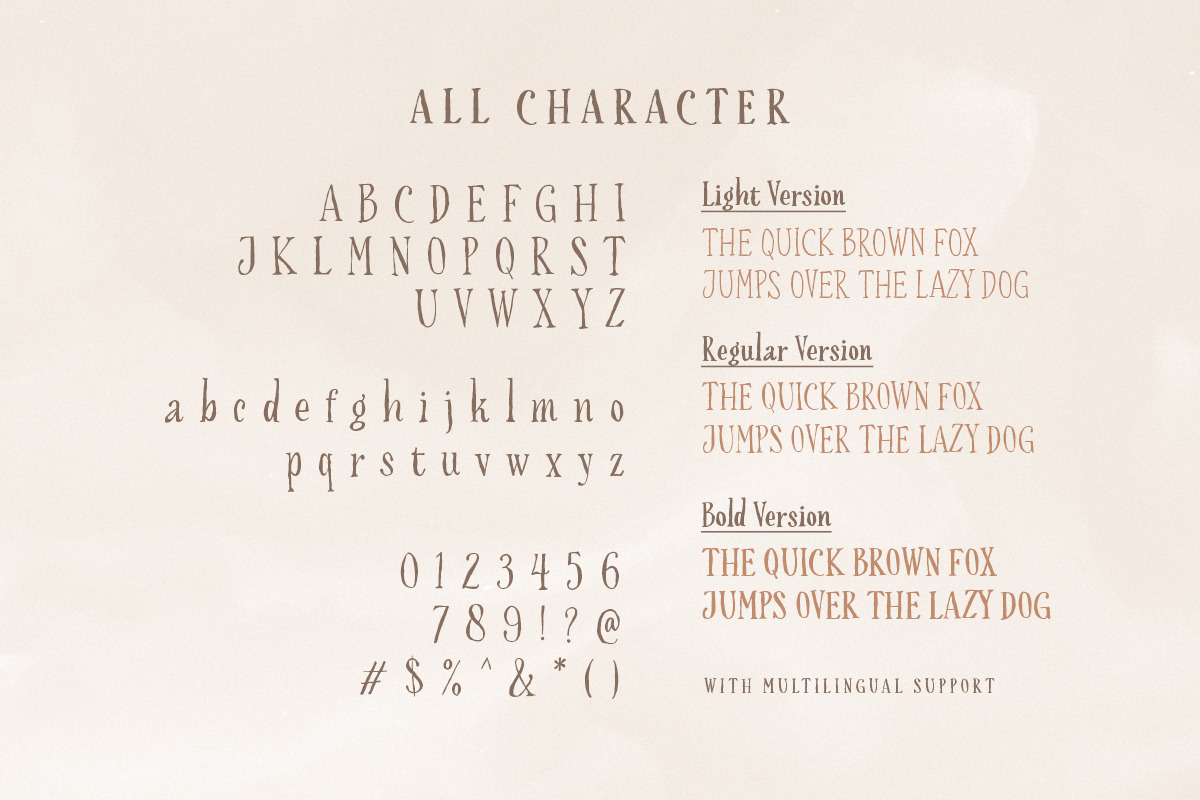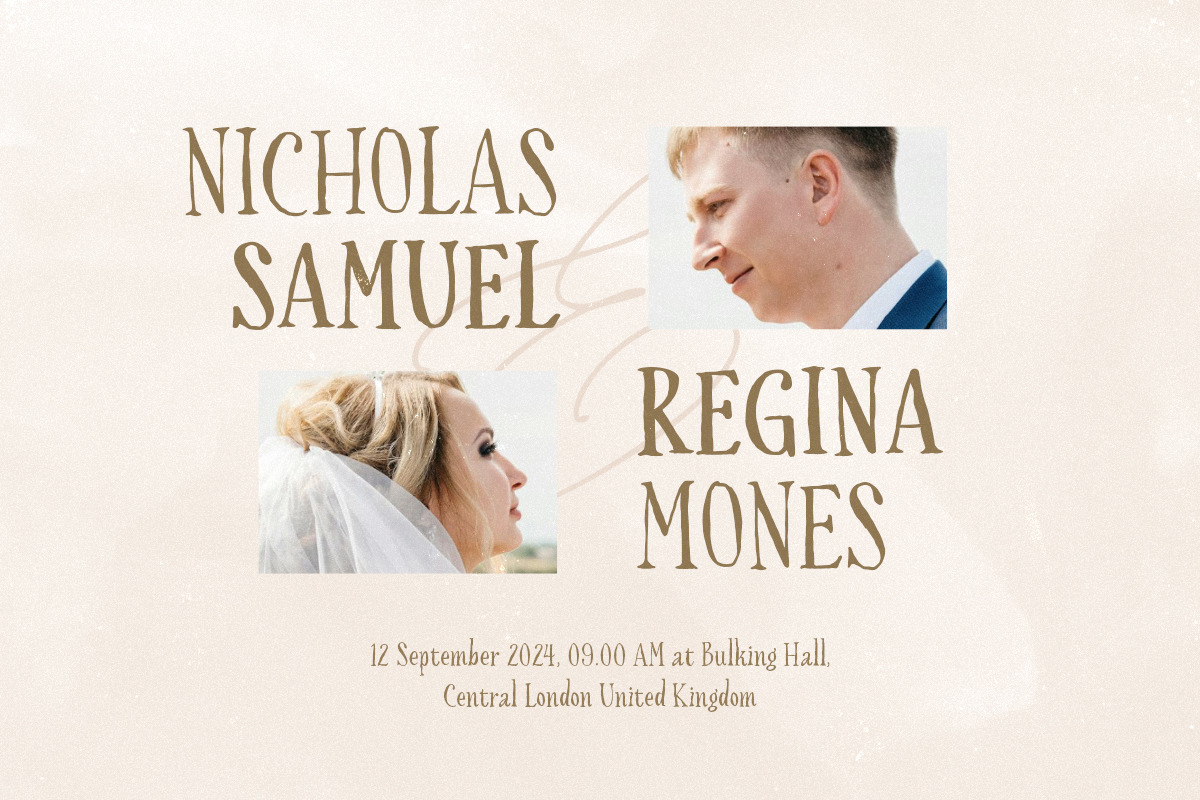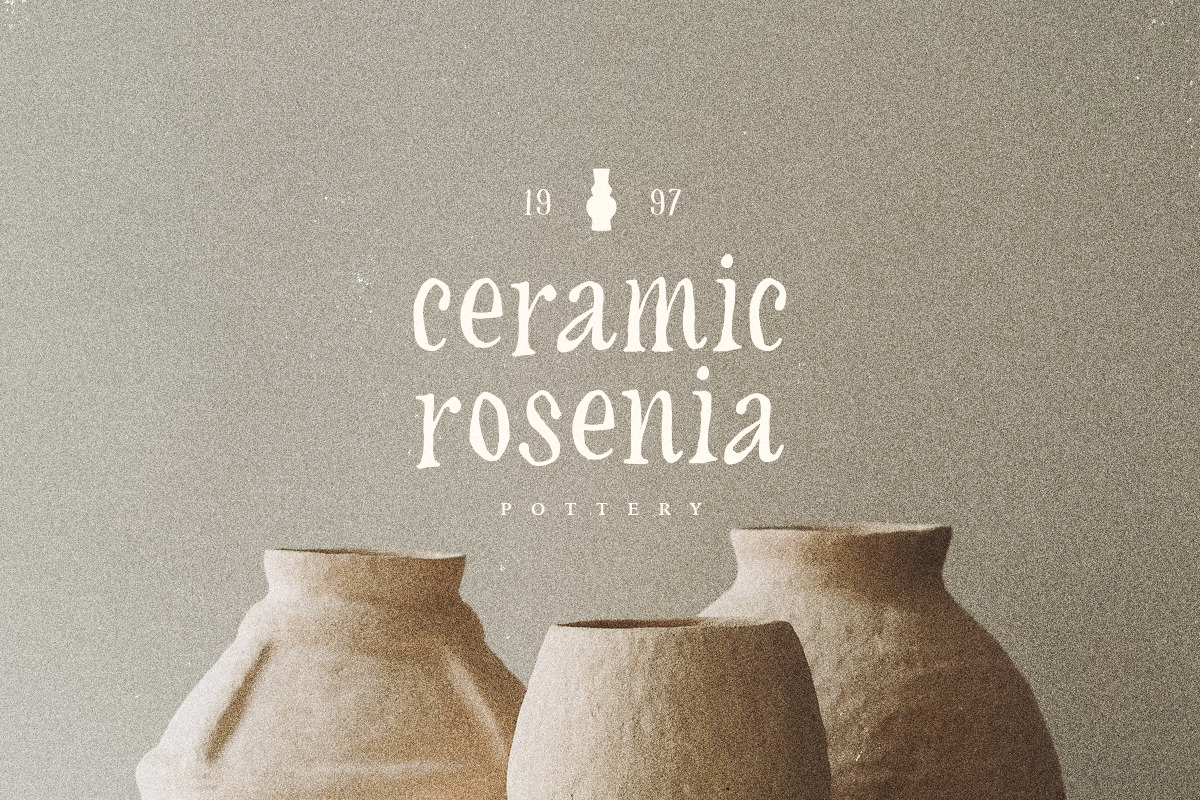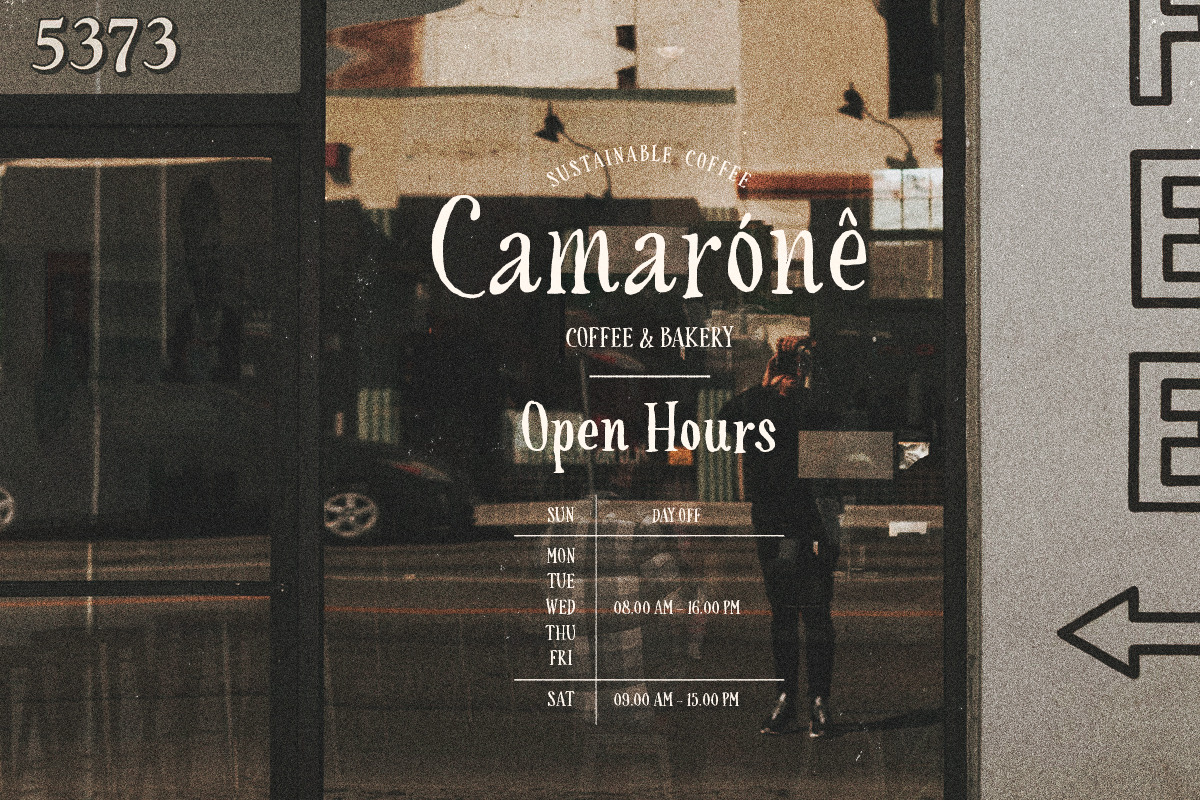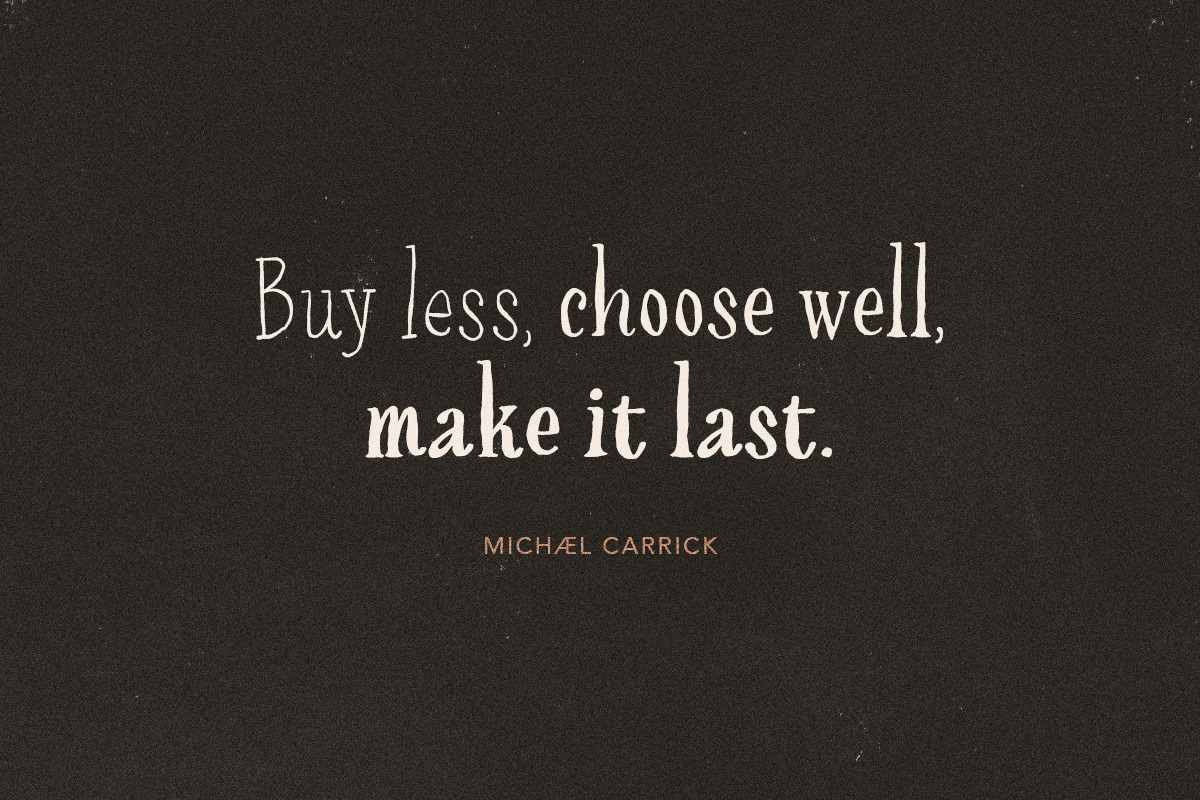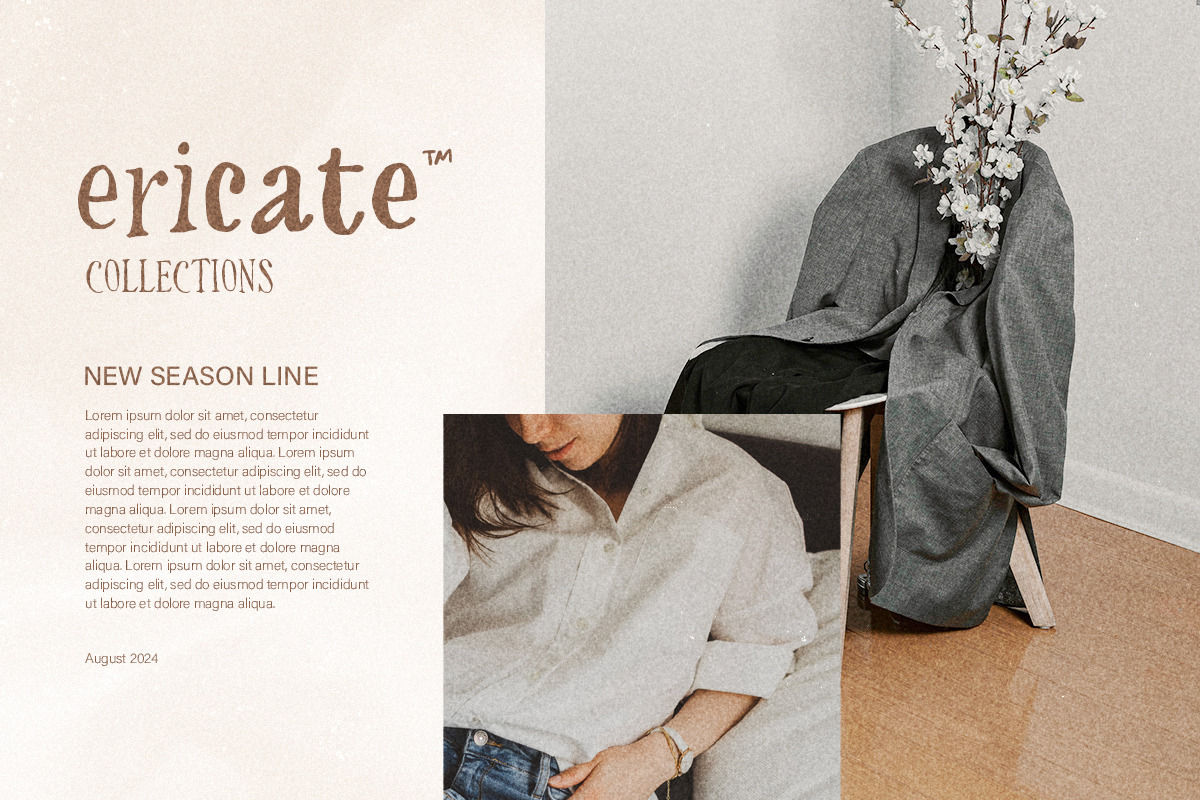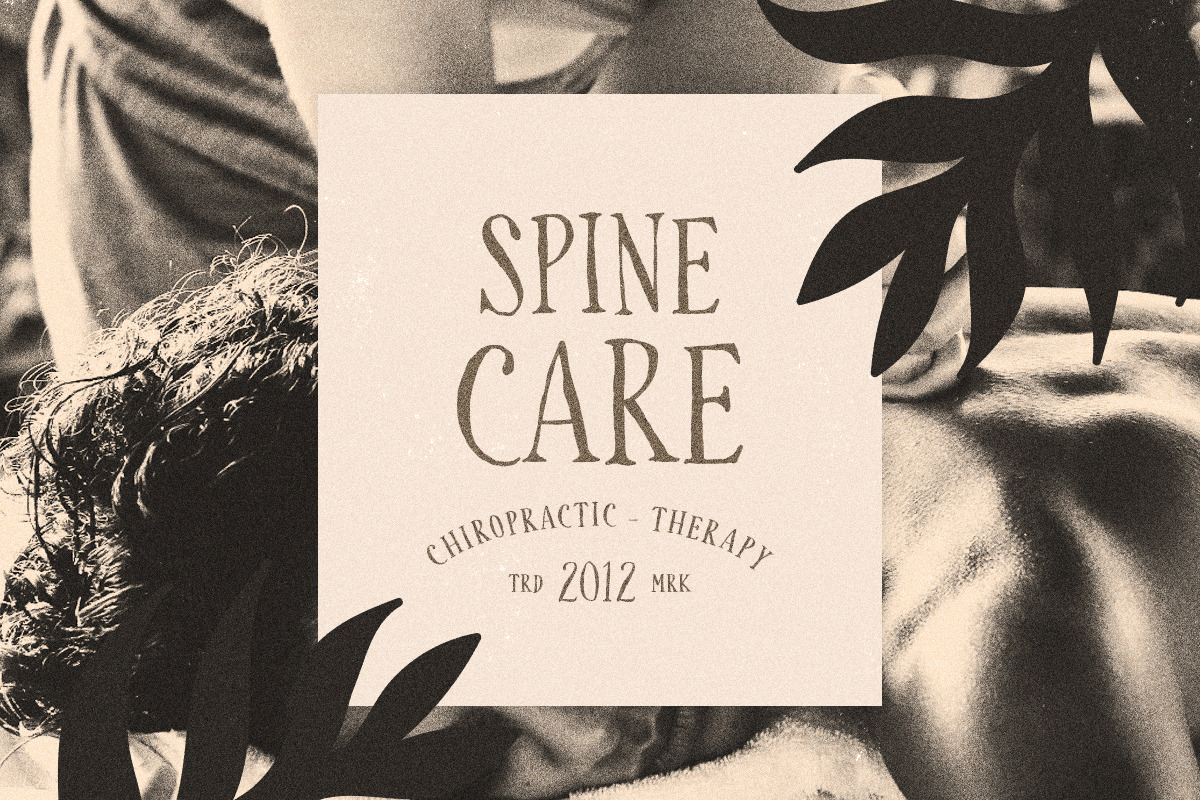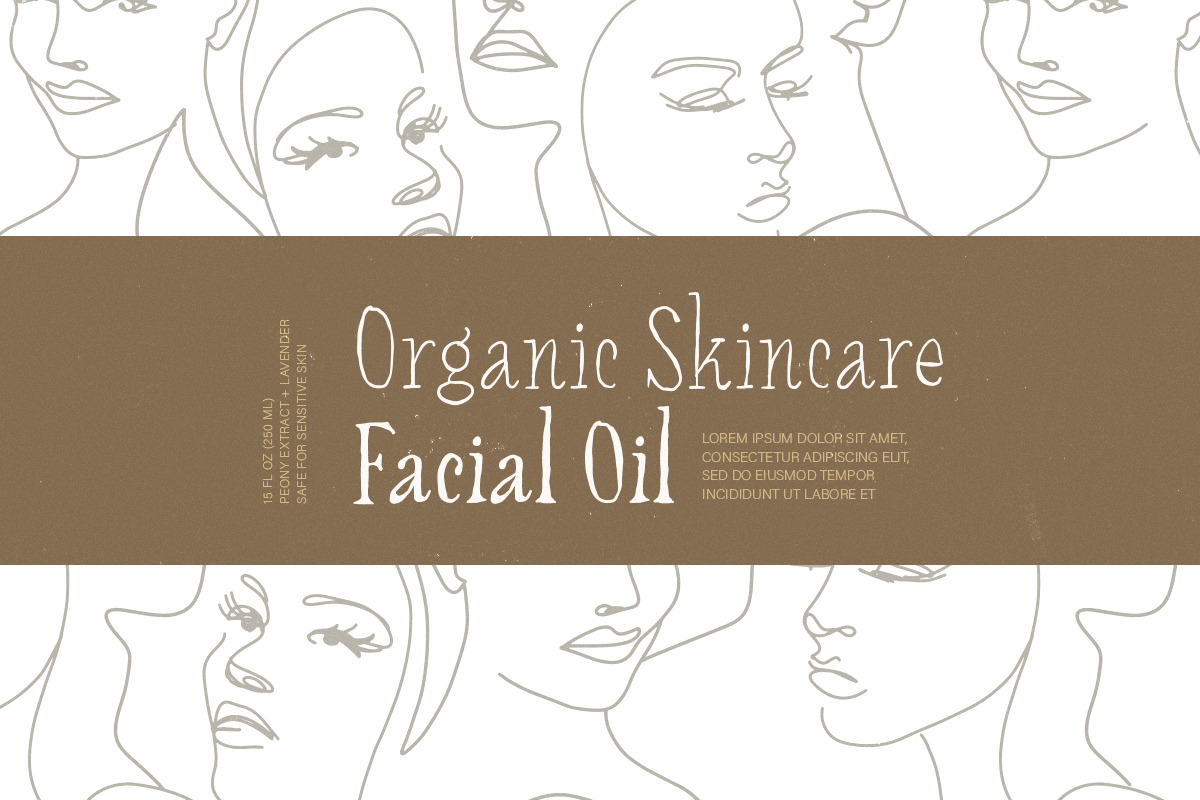
Manuscript - Hand Lettered Serif
Manuscript is a hand lettered sans serif family with natural and organic looks! Contain three weight. Including Light - Regular - Bold. You can use this font for every project such as branding, logo, hand lettering, or quotes. When you want a handmade touch in your design, this font will never go wrong. This font family also support multilingual, number and symbol.